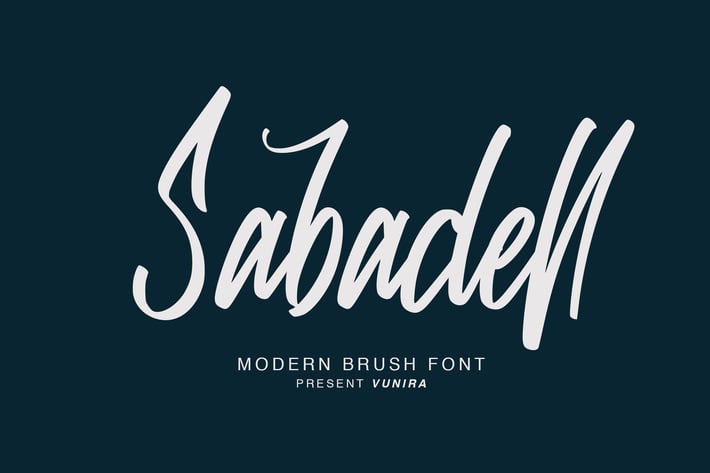
Sabadell | Modern Brush Font
Sabadell | Modern Brush Font with a calligraphy style, So beautiful on invitation like greeting cards, branding materials, business cards, quotes, posters, and more!